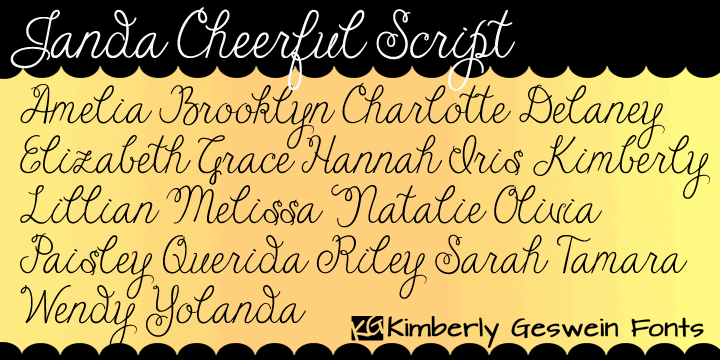
Free Janda Cheerful Script Font
Introducing you to the absolutely beautiful free janda cheerful script font. Download this font from the original source of Font Space. You can create a professional designs with this fancy font.